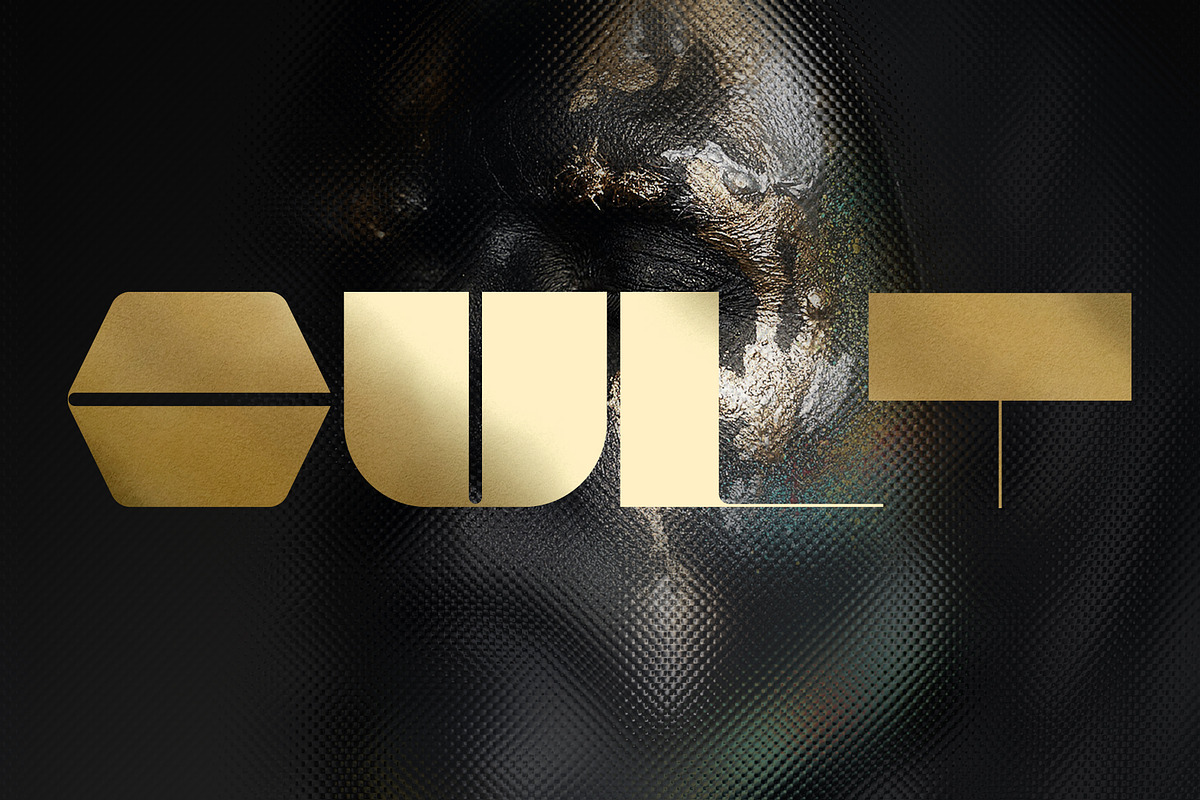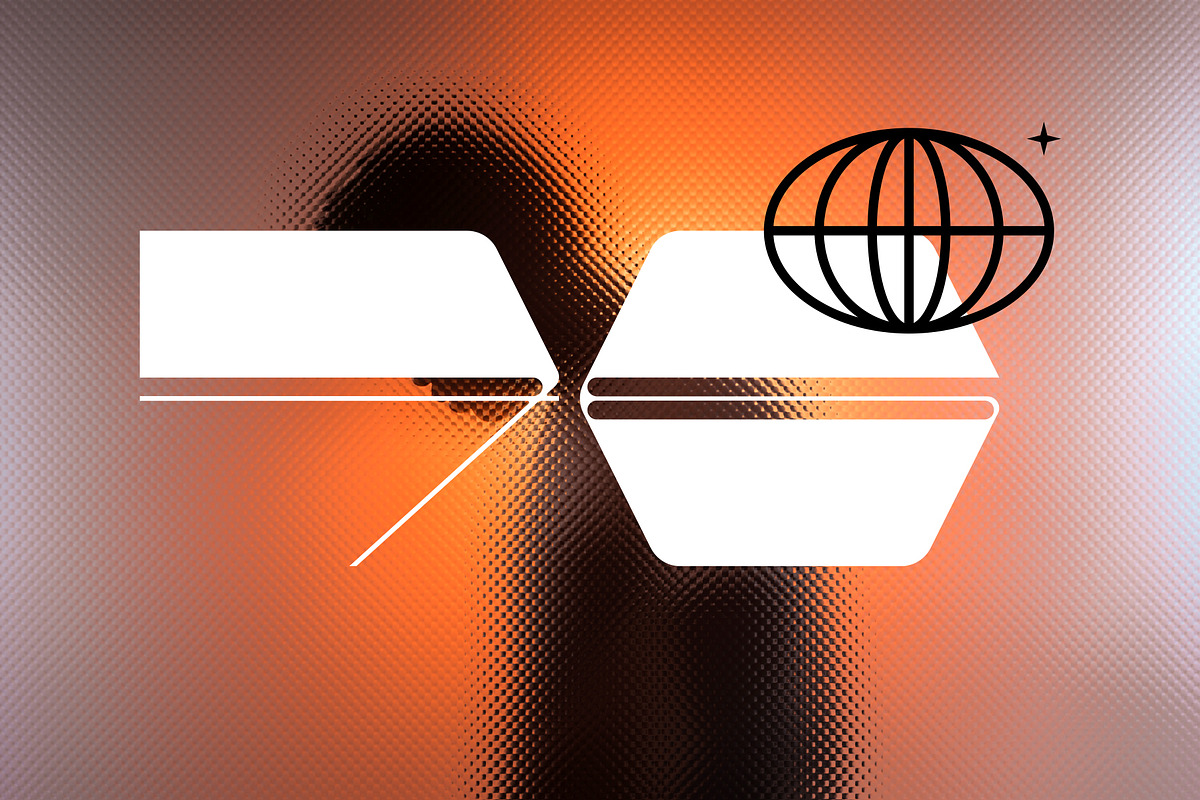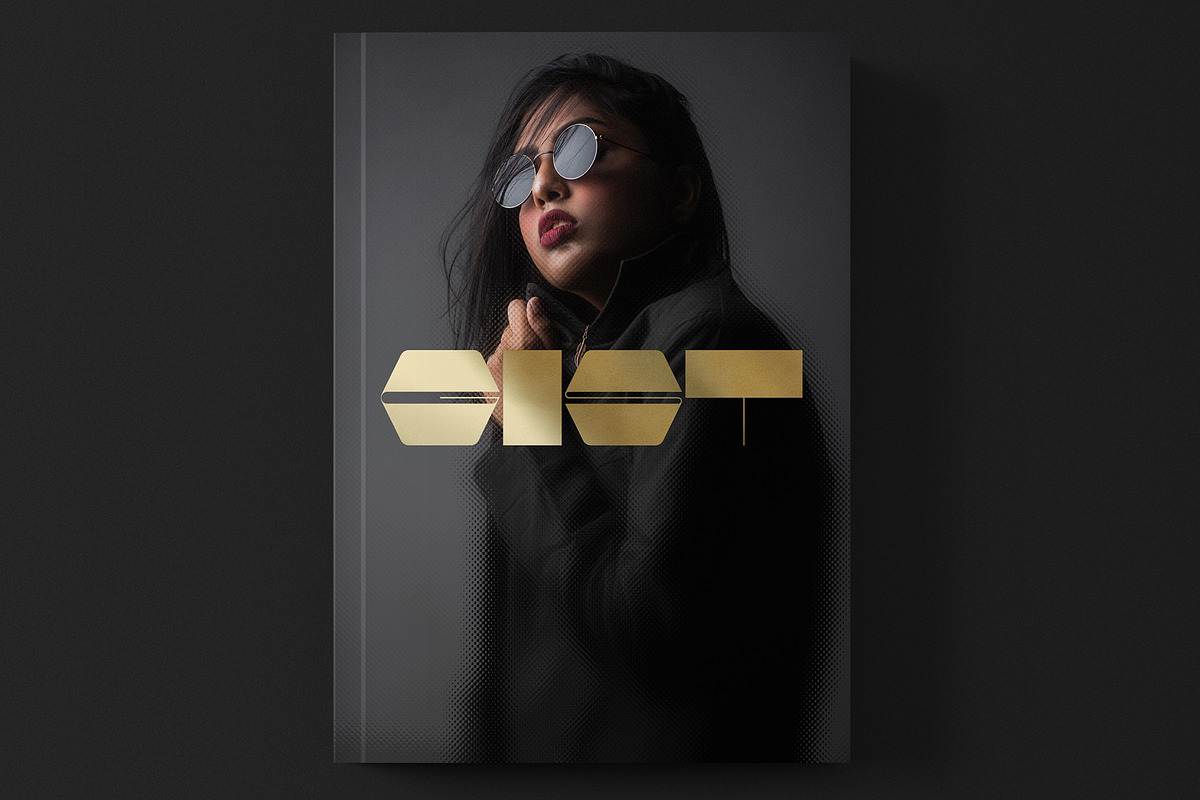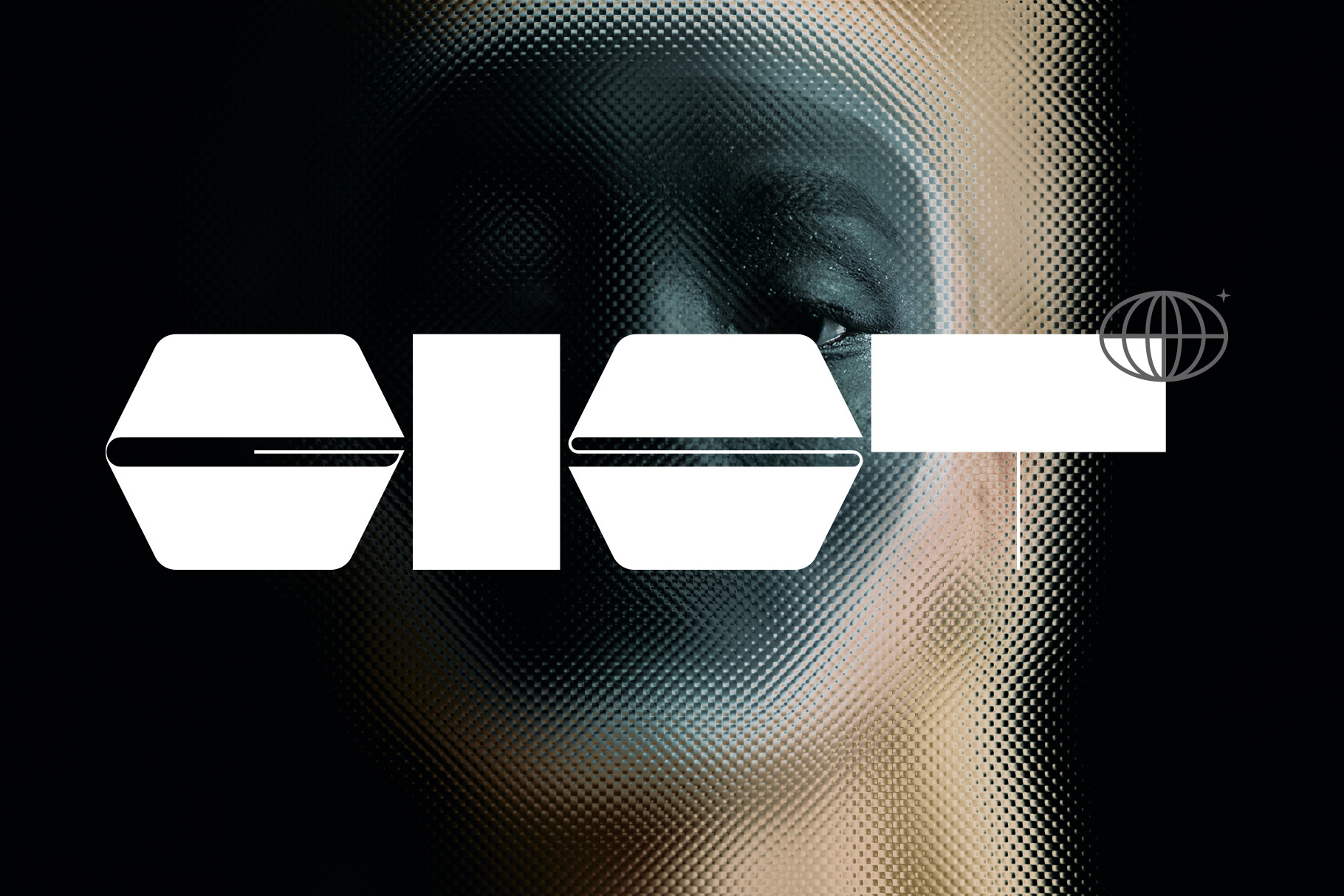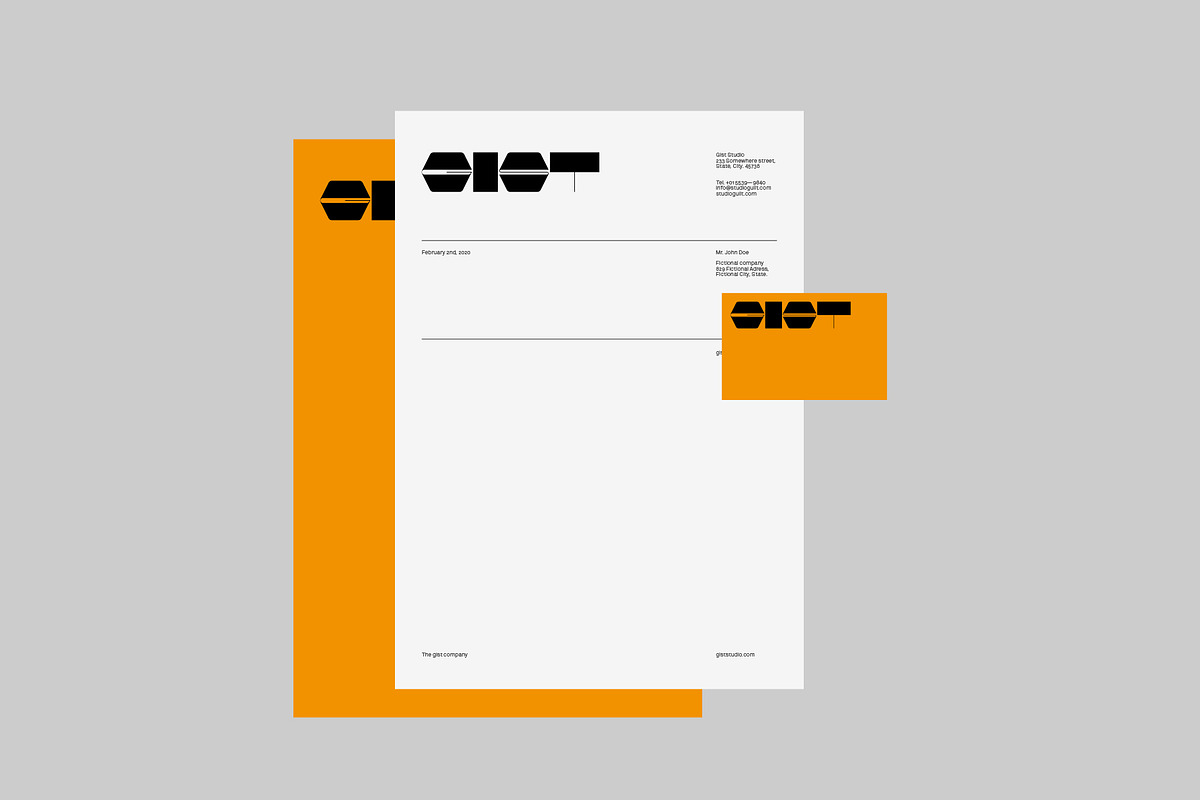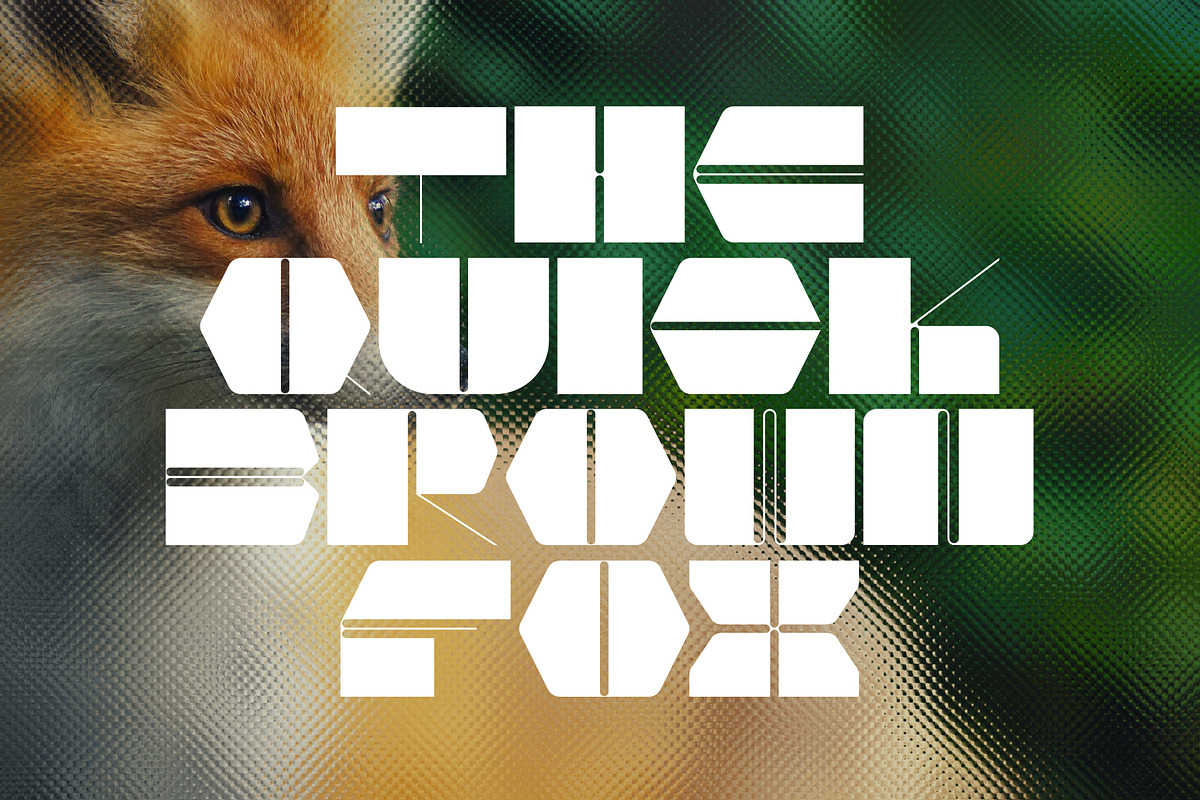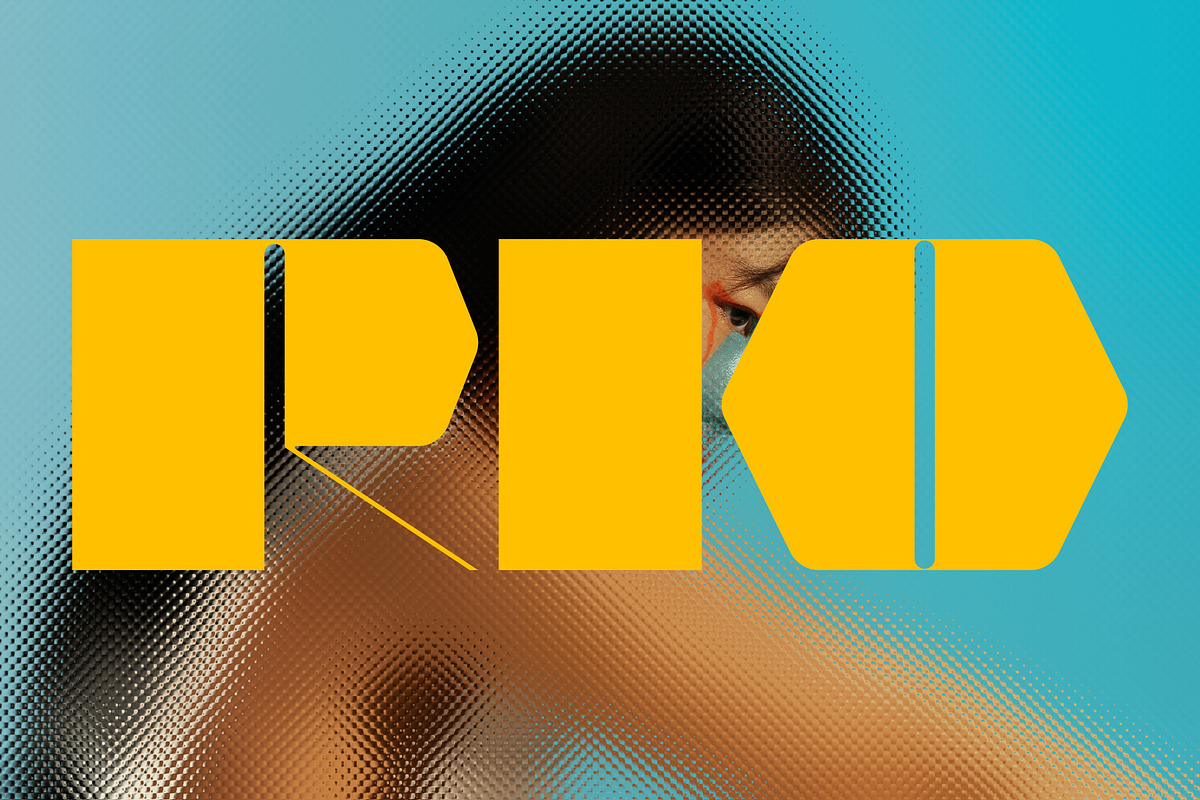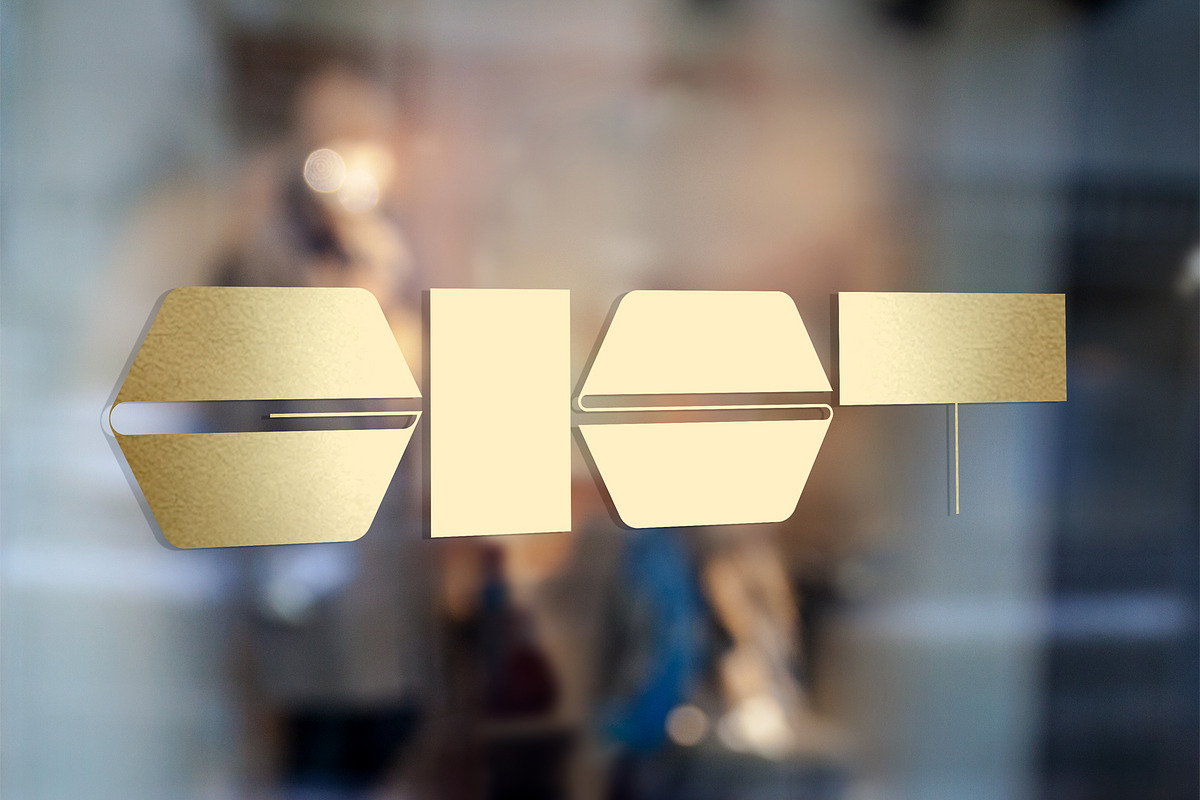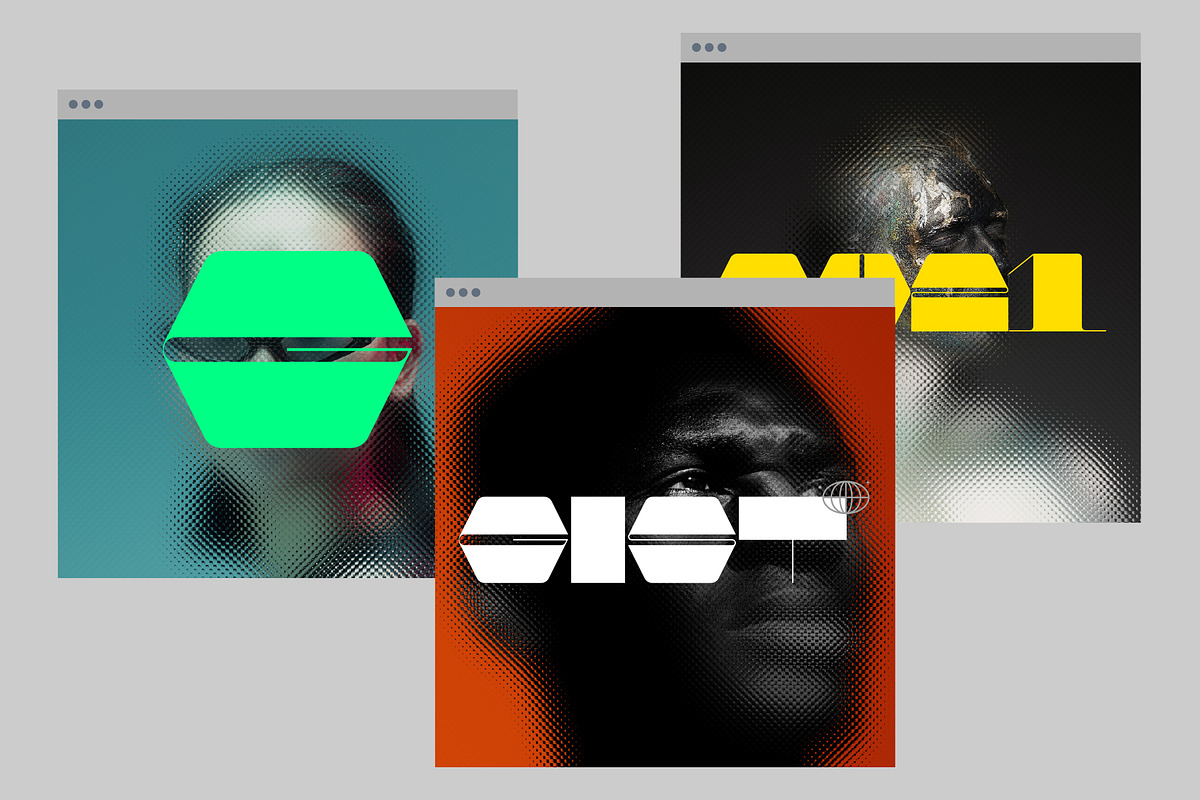
Srg - Gist display font
Srg® - Gist
A modern and futuristic typeface. CAPITALS ONLY
Specifically designed for display use, great for titles, logotypes, monograms and short texts, it includes 133 glyphs, ASCII / ISO 8859-1 (Latin-1)